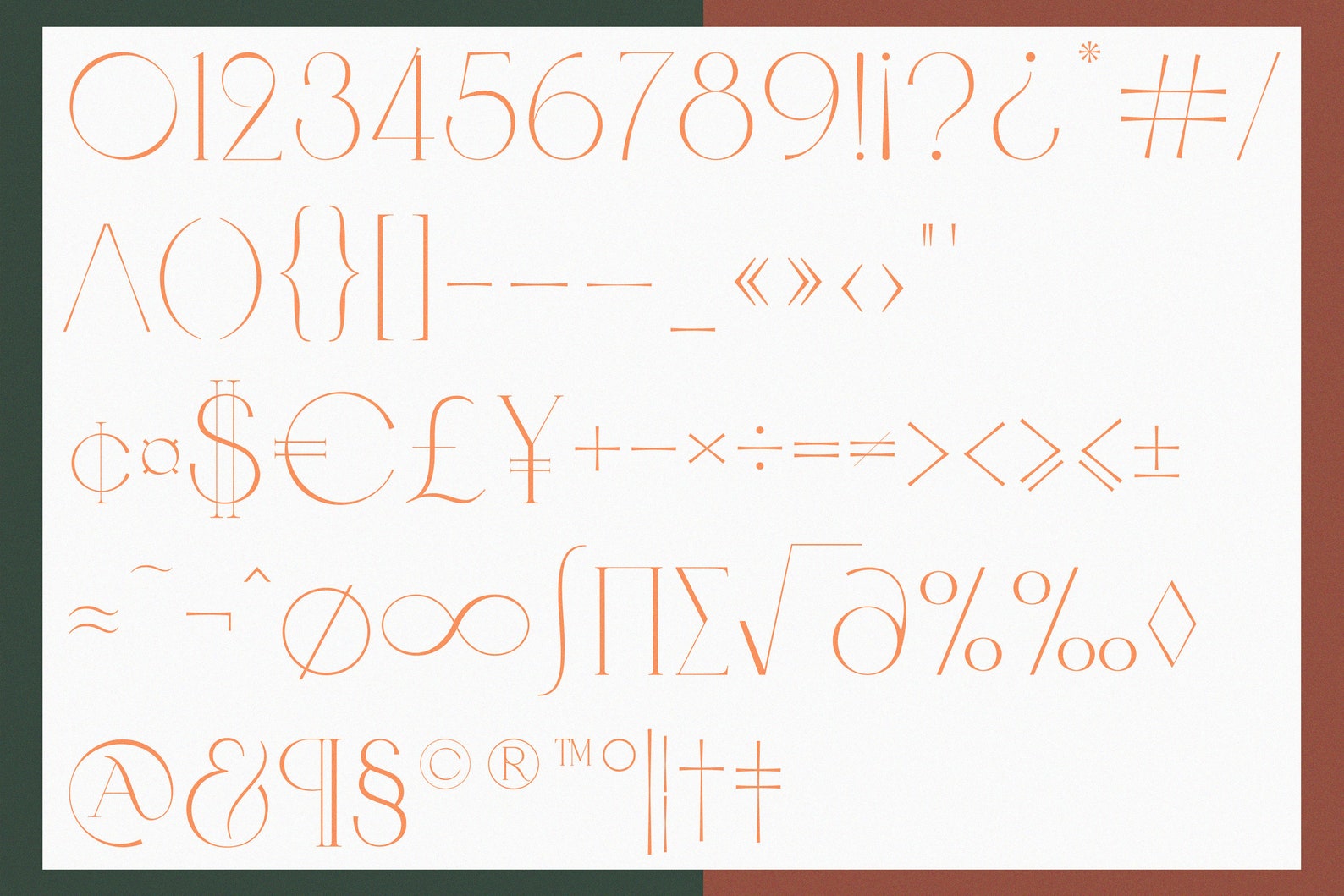
Abramo Serif Font
Abramo Serif Font - Abramo is a set of two modern fonts: Abramo is a perfect blend of elegance and modernity. Abramo serif otf (400) by elegant serif font with high contrast and narrow. Abramo is a set of two. Abramo is a set of two modern fonts:
Abramo is a set of two modern fonts: Abramo serif otf (400) by elegant serif font with high contrast and narrow. Abramo is a perfect blend of elegance and modernity. Abramo is a set of two modern fonts: Abramo is a set of two.
Abramo is a perfect blend of elegance and modernity. Abramo is a set of two modern fonts: Abramo serif otf (400) by elegant serif font with high contrast and narrow. Abramo is a set of two.
Abramo Serif Font Free They Blend Together So Well, That You Can Create
Abramo is a set of two modern fonts: Abramo serif otf (400) by elegant serif font with high contrast and narrow. Abramo is a set of two modern fonts: Abramo is a perfect blend of elegance and modernity. Abramo is a set of two.
Abramo is a set of two modern fonts: Abramo is a set of two. Abramo serif otf (400) by elegant serif font with high contrast and narrow. Abramo is a perfect blend of elegance and modernity. Abramo is a set of two modern fonts:
Abramo Serif Font Free They Blend Together So Well, That You Can Create
Abramo is a set of two. Abramo is a set of two modern fonts: Abramo serif otf (400) by elegant serif font with high contrast and narrow. Abramo is a set of two modern fonts: Abramo is a perfect blend of elegance and modernity.
Abramo Serif Font Free They Blend Together So Well, That You Can Create
Abramo is a set of two modern fonts: Abramo is a perfect blend of elegance and modernity. Abramo is a set of two. Abramo is a set of two modern fonts: Abramo serif otf (400) by elegant serif font with high contrast and narrow.
Abramo is a set of two. Abramo is a set of two modern fonts: Abramo serif otf (400) by elegant serif font with high contrast and narrow. Abramo is a perfect blend of elegance and modernity. Abramo is a set of two modern fonts:
Abramo serif otf (400) by elegant serif font with high contrast and narrow. Abramo is a set of two modern fonts: Abramo is a perfect blend of elegance and modernity. Abramo is a set of two.
Abramo Serif Font Free They Blend Together So Well, That You Can Create
Abramo is a set of two. Abramo serif otf (400) by elegant serif font with high contrast and narrow. Abramo is a set of two modern fonts: Abramo is a perfect blend of elegance and modernity.
Abramo Serif Font Free They Blend Together So Well, That You Can Create
Abramo is a set of two modern fonts: Abramo is a perfect blend of elegance and modernity. Abramo is a set of two modern fonts: Abramo is a set of two. Abramo serif otf (400) by elegant serif font with high contrast and narrow.
Abramo Serif Font Free They Blend Together So Well, That You Can Create
Abramo is a set of two. Abramo serif otf (400) by elegant serif font with high contrast and narrow. Abramo is a set of two modern fonts: Abramo is a perfect blend of elegance and modernity.
Abramo Serif Otf (400) By Elegant Serif Font With High Contrast And Narrow.
Abramo is a set of two modern fonts: Abramo is a set of two. Abramo is a set of two modern fonts: Abramo is a perfect blend of elegance and modernity.